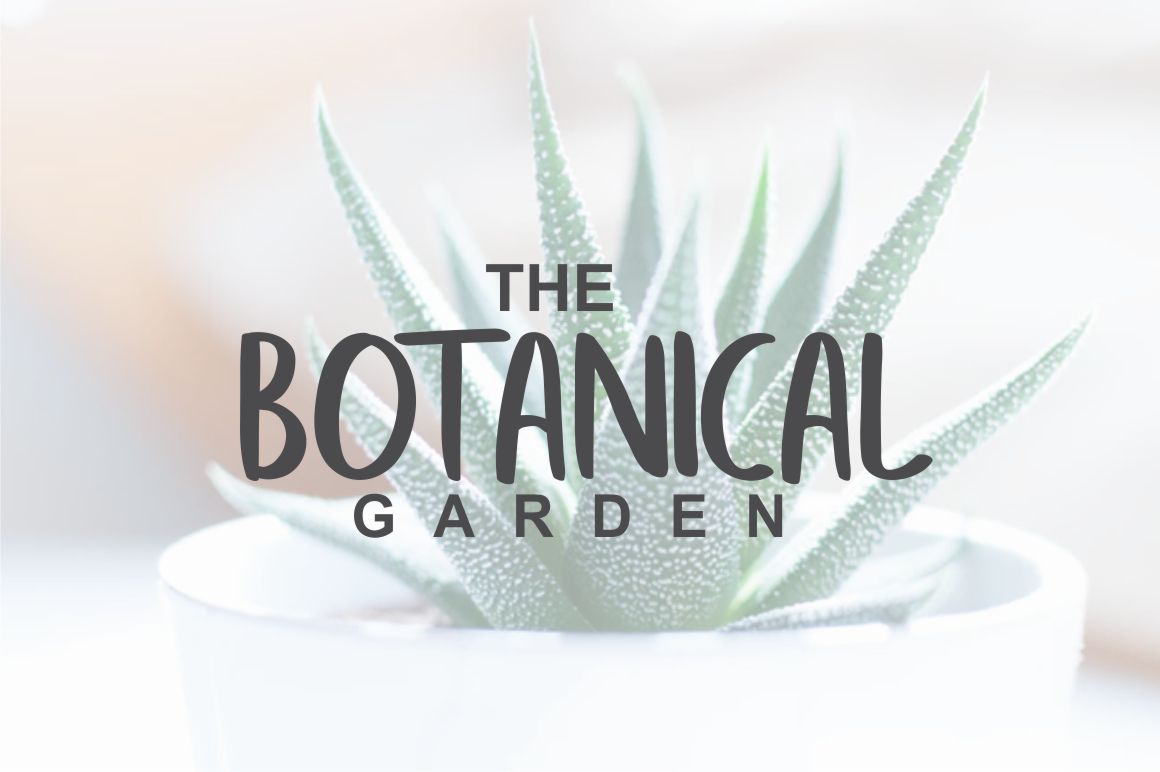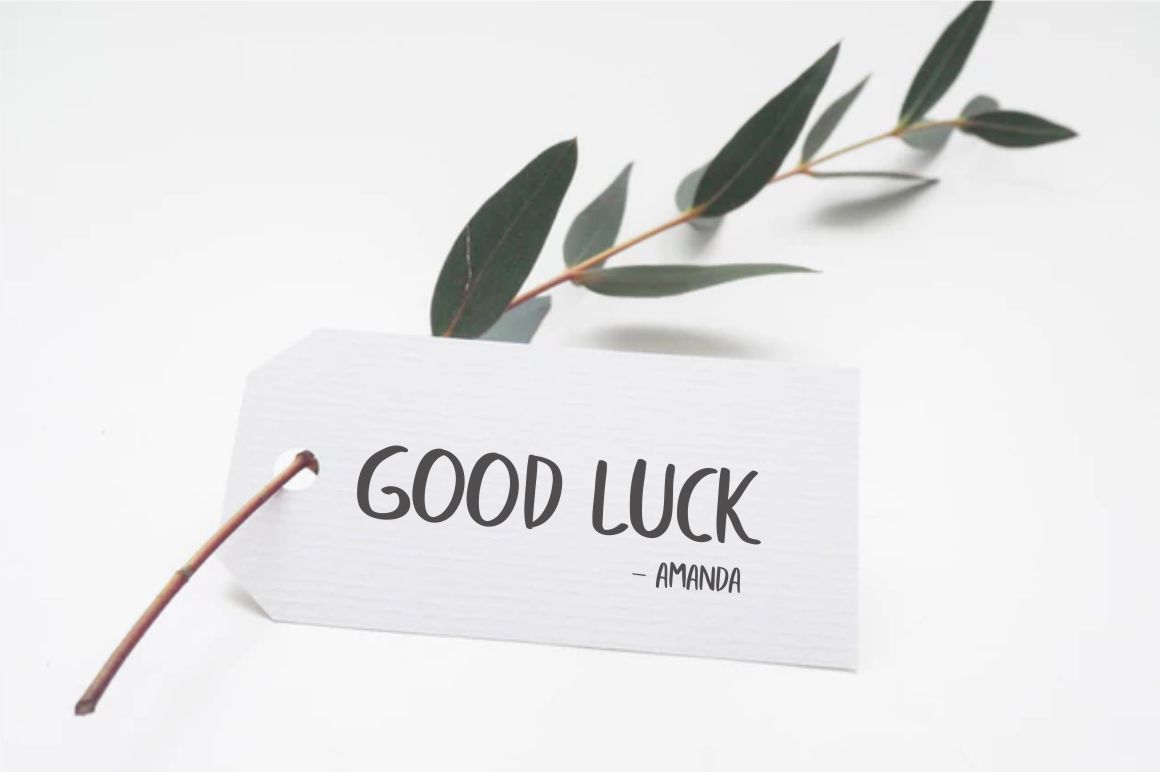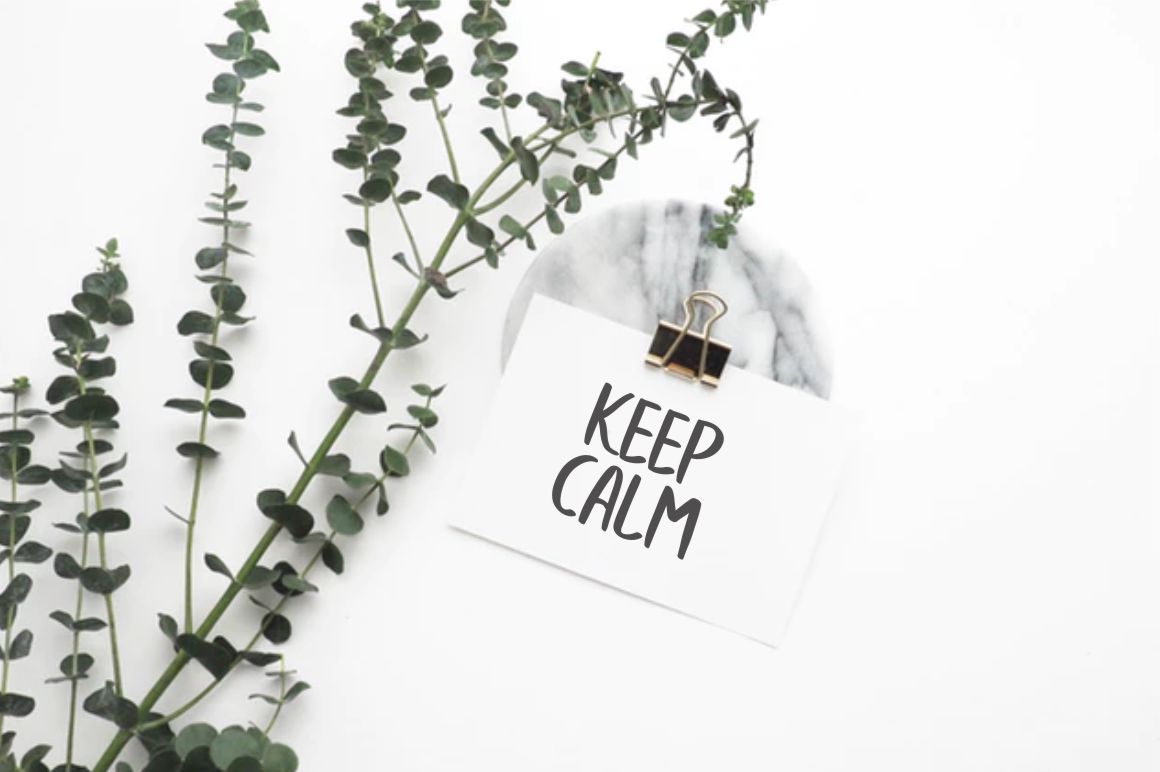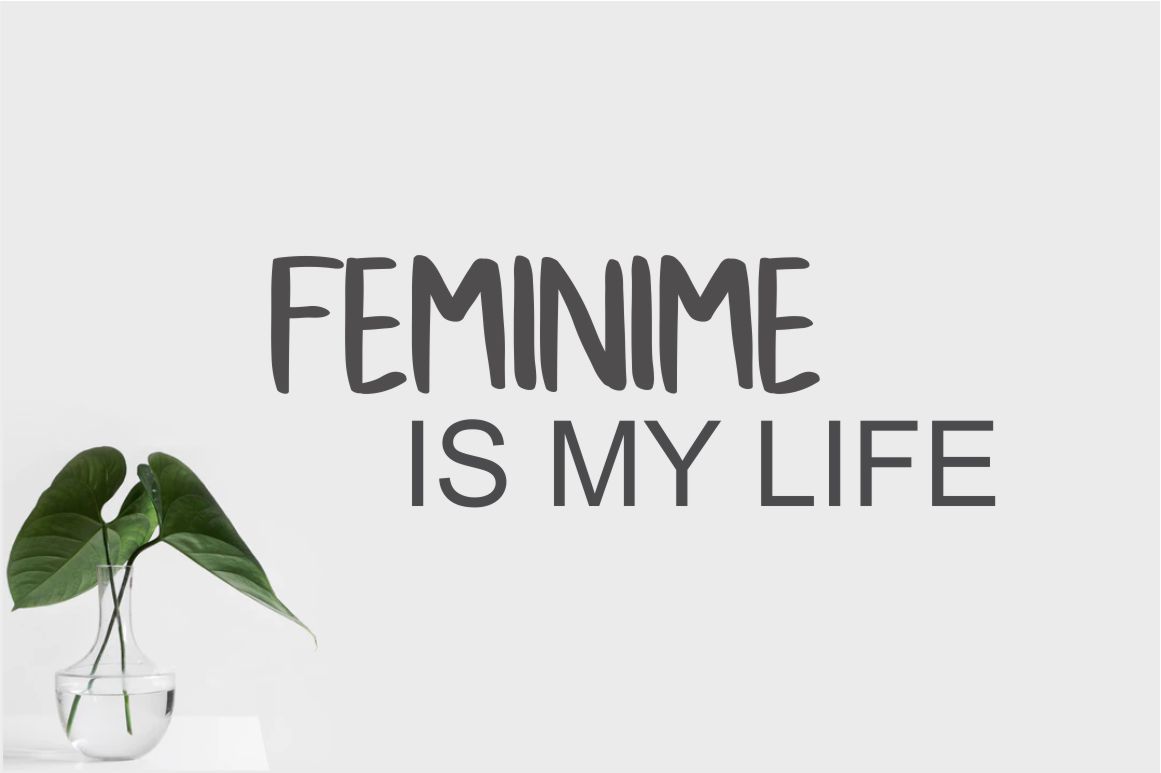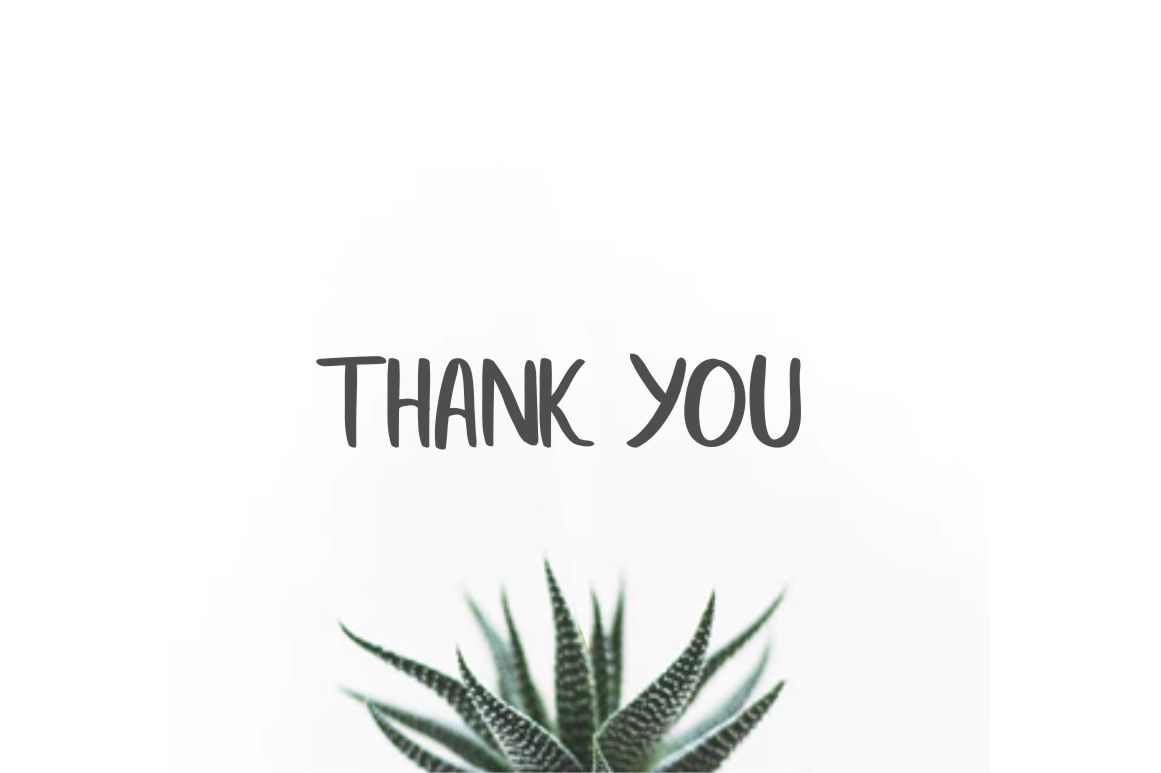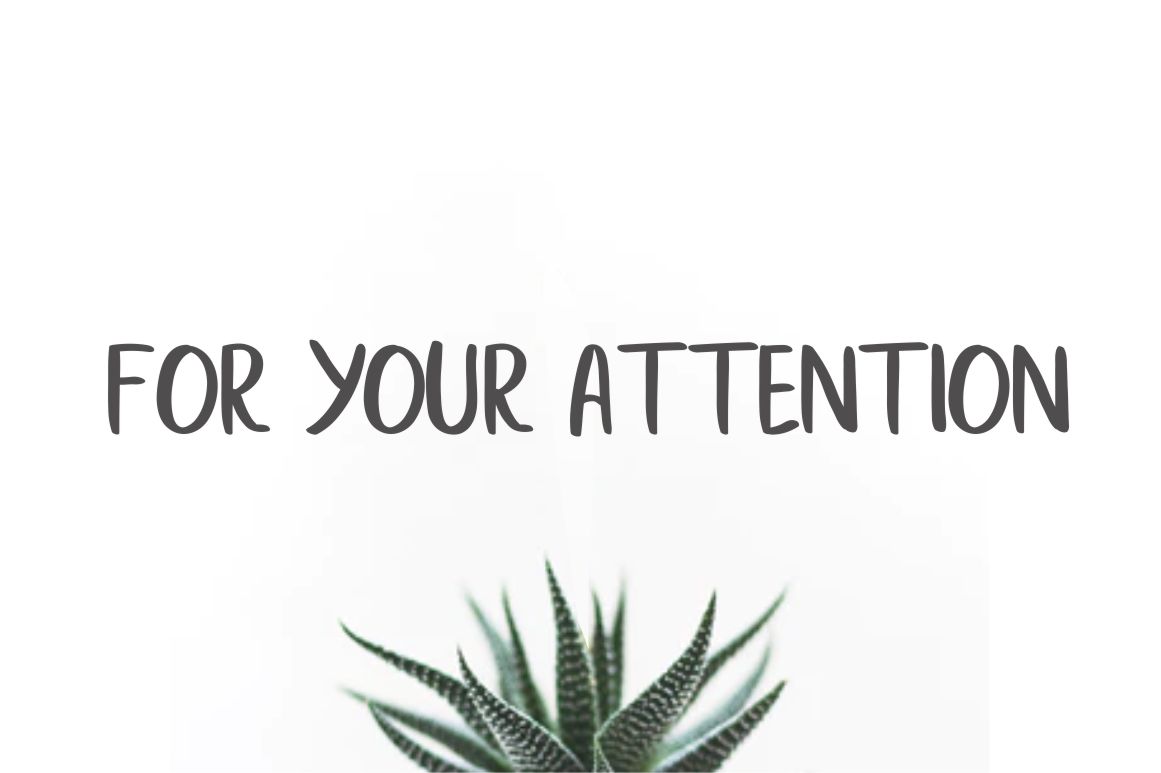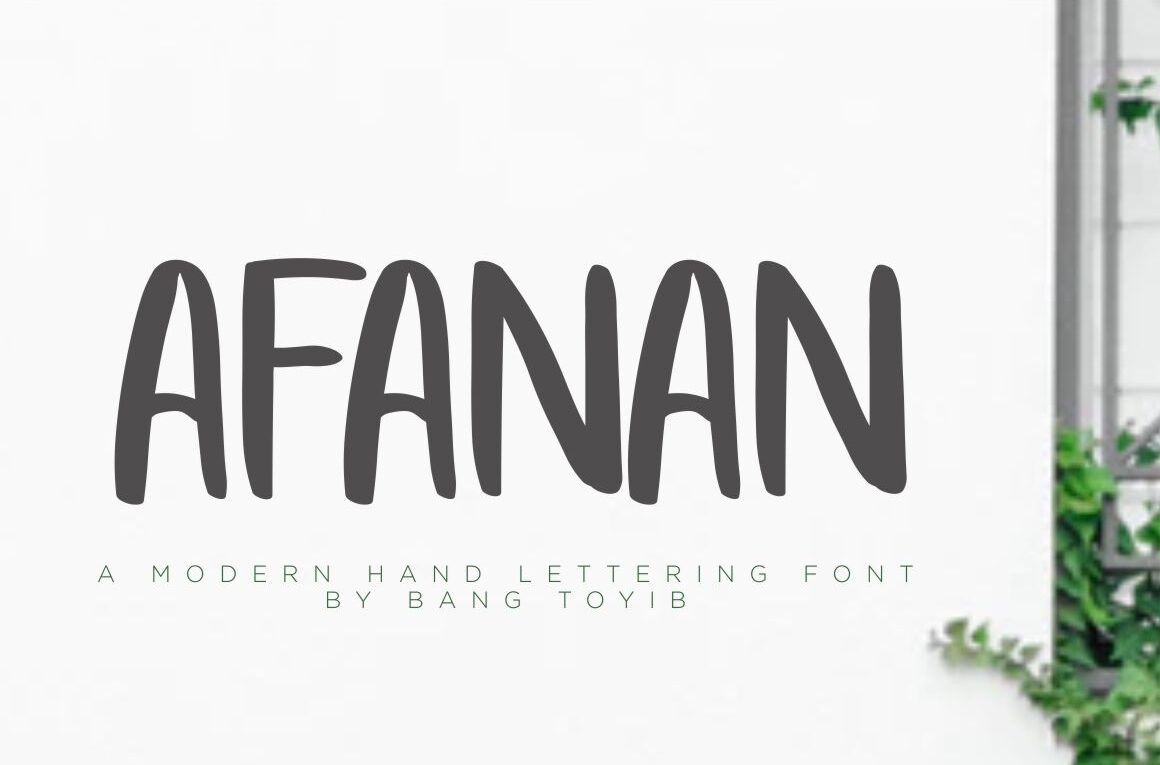
Introducing Afanan Font: Add a Playful Charm to Your Designs
Are you tired of using the same old fonts in your designs? Do you want to add a touch of personality and whimsy to your creations? Look no further than Afanan Font, a beautiful handmade brush font that’s perfect for designers and crafters alike. With its relaxed vibe and charming look, Afanan Font is sure to take your designs to the next level.
What is Afanan Font?
Afanan Font is a unique and stylish font that’s been carefully crafted to give your designs a playful and charming look. As a handmade brush font, Afanan has a distinctive, organic feel that’s perfect for creating eye-catching headings, titles, and text. Whether you’re working on a logo, a poster, or a digital project, Afanan Font is the perfect choice for adding a touch of personality and flair.
Key Features of Afanan Font
- Handmade with love: Afanan Font is a genuine handmade brush font, crafted with care and attention to detail to give it a unique and authentic feel.
- Relaxed vibe: Afanan Font has a laid-back, relaxed vibe that’s perfect for creating designs that are casual, friendly, and approachable.
- Playful and charming: With its whimsical and charming look, Afanan Font is sure to add a touch of magic to your designs and make them stand out from the crowd.
- Multilingual support: Afanan Font supports multiple languages, making it a great choice for designers and crafters who work with international clients or want to create designs that appeal to a global audience.
How to Use Afanan Font in Your Designs
Afanan Font is incredibly versatile and can be used in a wide range of design projects, including:
- Logos and branding: Use Afanan Font to create a unique and memorable logo that reflects your brand’s personality and style.
- Posters and flyers: Add a touch of whimsy and charm to your posters and flyers with Afanan Font, perfect for promoting events, products, or services.
- Digital projects: Use Afanan Font in your digital projects, such as social media graphics, email headers, and website titles, to add a playful and charming touch.
- Crafting and DIY projects: Afanan Font is also perfect for crafters and DIY enthusiasts who want to add a personal touch to their projects, such as handmade cards, gift tags, and scrapbooking.
Tips and Tricks for Getting the Most Out of Afanan Font
To get the most out of Afanan Font, here are a few tips and tricks to keep in mind:
- Experiment with different colors: Afanan Font looks great in a wide range of colors, so don’t be afraid to experiment and find the perfect hue to match your design.
- Mix and match with other fonts: Combine Afanan Font with other fonts to create a unique and eye-catching look that’s all your own.
- Use it sparingly: Afanan Font is a statement font, so use it sparingly to add emphasis and impact to your designs.